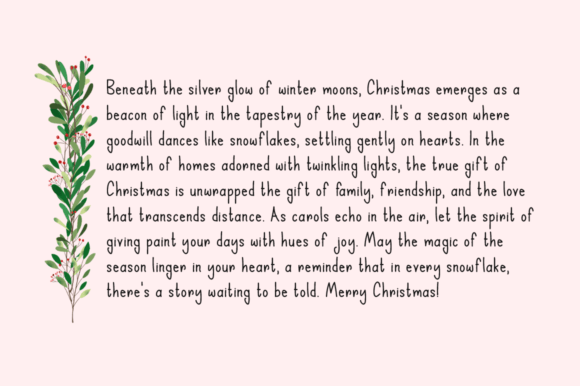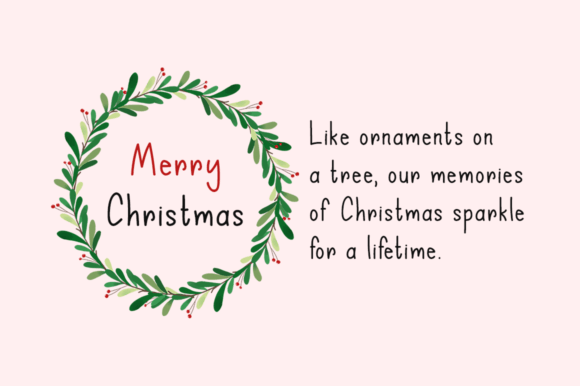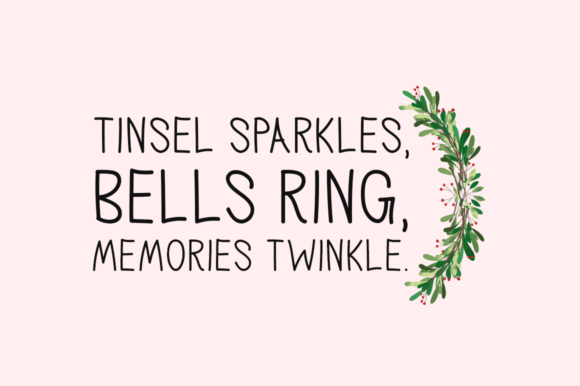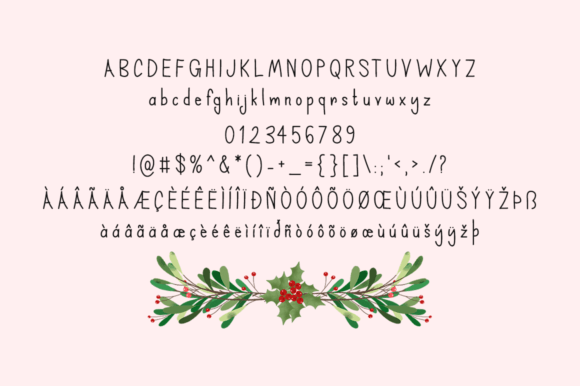
Introduction to Holy Nativity Font
Have you ever stumbled upon the perfect design element that makes your creative project truly shine? For many designers, that moment of serendipity comes when they find the perfect font to bring their vision to life. For us, that moment arrived when we discovered the Holy Nativity Font – a beautiful, handcrafted typeface that exudes warmth and joy.
With its unique handwritten style, the Holy Nativity Font invites endless possibilities for your design projects. Whether you’re working on a holiday-themed campaign or simply want to add a touch of personality to your branding, this font is sure to deliver. And the best part? It’s available for free download, making it a valuable resource for designers of all levels.
What sets the Holy Nativity Font apart from other design elements is its high quality and versatility. Whether you’re using it on a transparent background or pairing it with bold graphics, this font is sure to elevate your design to the next level. So why settle for a generic font when you can add a touch of personality to your project with the Holy Nativity Font?
Key Features of Holy Nativity Font
- High-quality design suitable for creative projects, including Christmas cards, invitations, and holiday-themed artwork.
- Features a transparent background, allowing for seamless integration with any design element or background image.
- Designed with a unique, hand-drawn style, adding a touch of elegance and sophistication to any creative project.
Honest Review: Holy Nativity Font
I recently stumbled upon the Holy Nativity Font and I’m excited to share my thoughts on it. As a designer, I’m always on the lookout for high-quality design resources to elevate my creative projects.
- The font has a beautiful, intricate design that would be perfect for holiday-themed projects.
- The transparent background makes it easy to use in various design contexts.
- The font may not be suitable for all types of projects, especially those that require a more modern or minimalist look.
Overall, I’m impressed with the Holy Nativity Font. Its unique design and versatility make it a valuable addition to any designer’s toolkit. While it may have some limitations, I believe it’s a great resource for designers working on holiday-themed or vintage-inspired projects.
Tips for Getting the Most Out of Holy Nativity Font
Use the Holy Nativity Font with a transparent background to create stunning designs. Experiment with different font sizes and styles to add depth and creativity to your project.
The Holy Nativity Font is ideal for holiday-themed designs, such as Christmas cards, invitations, and decorations. It’s also great for creating high-quality design resources, like templates and graphics.